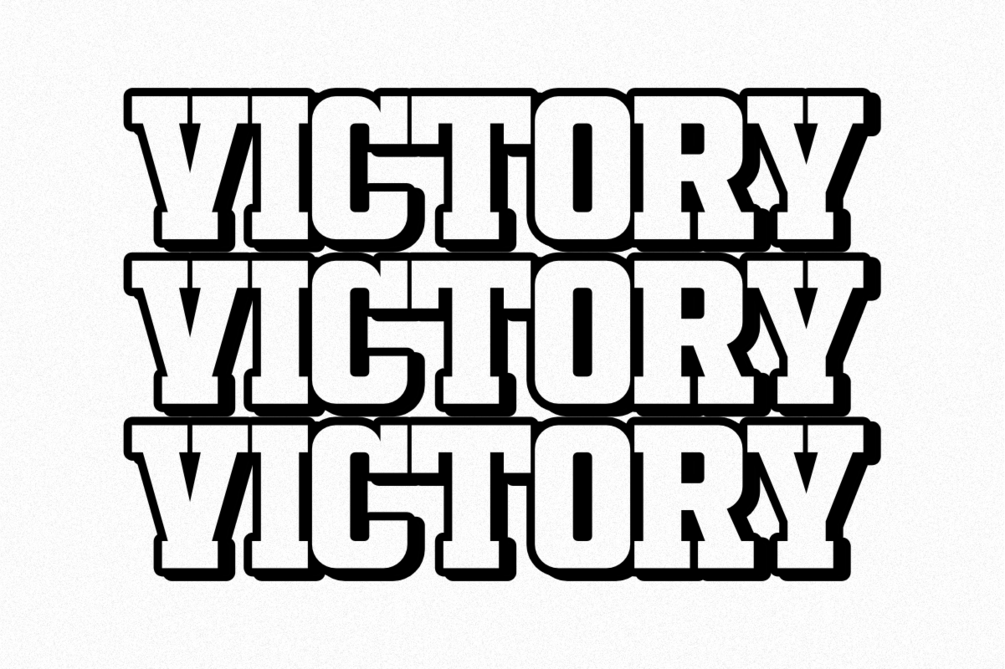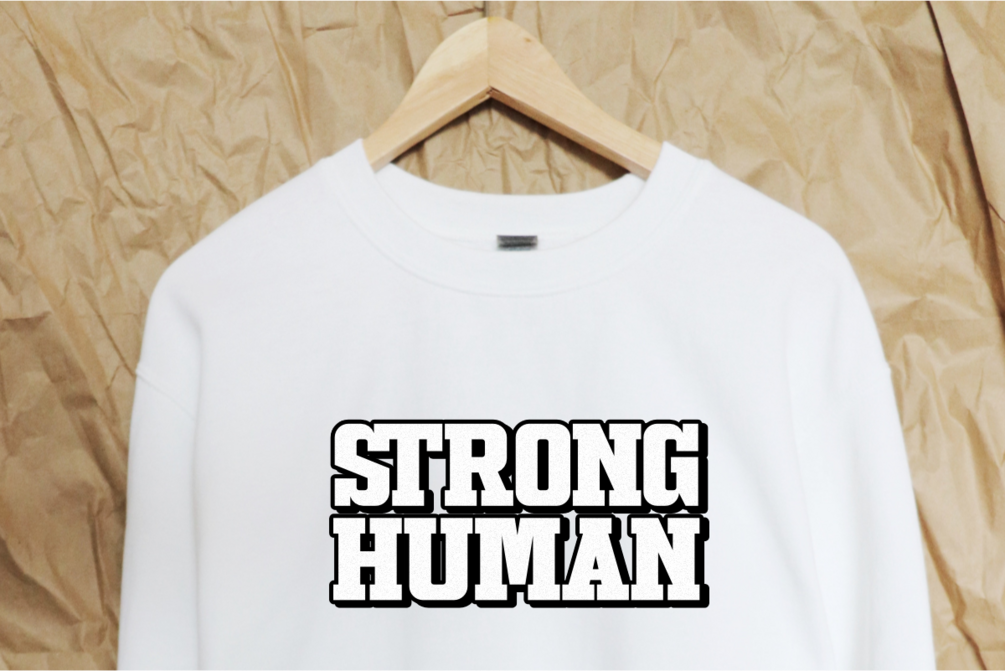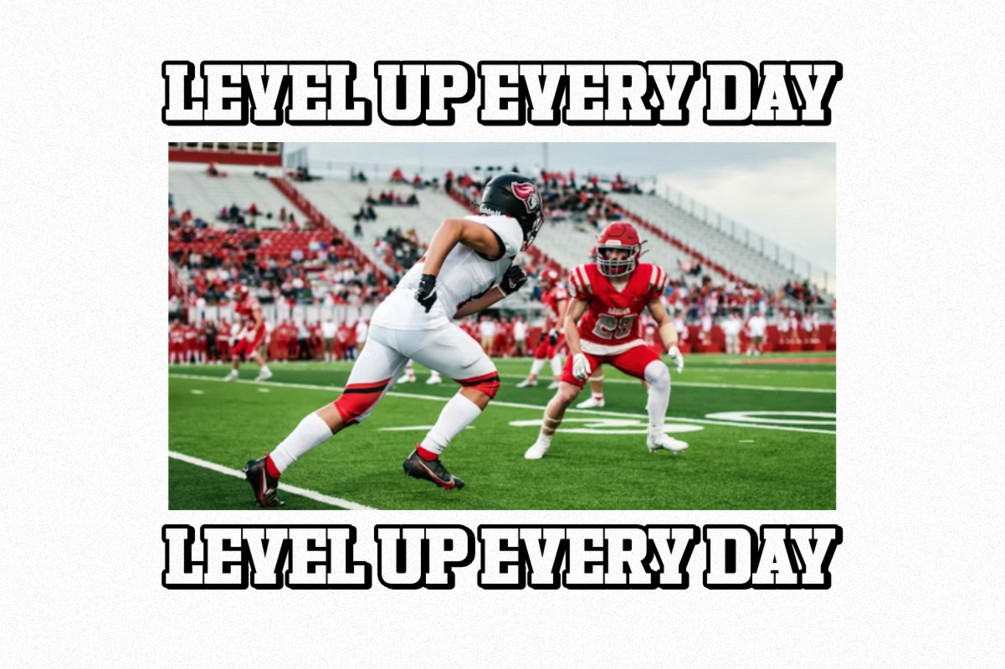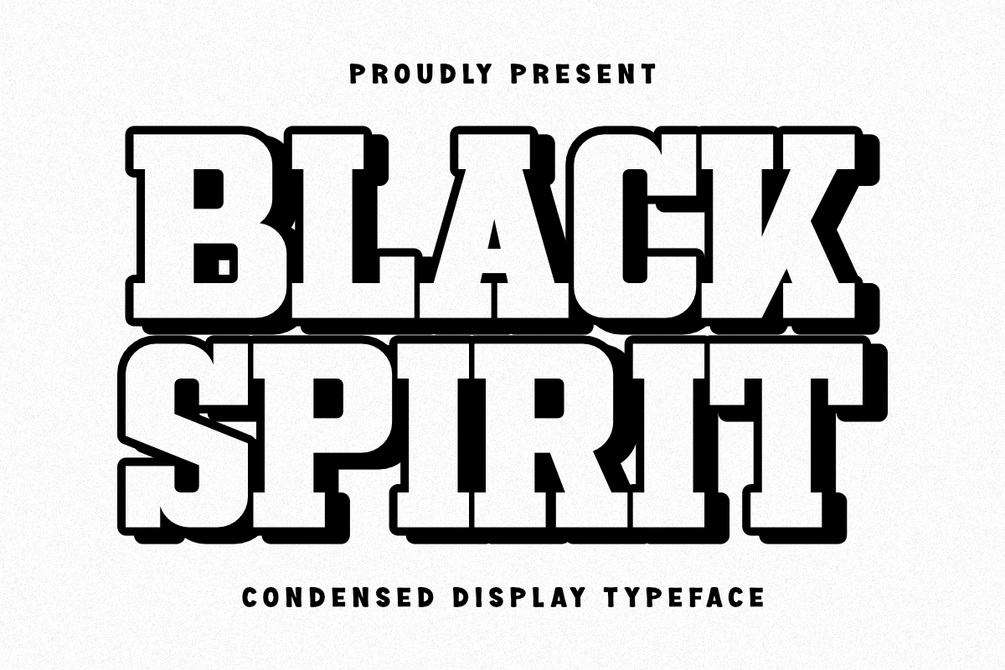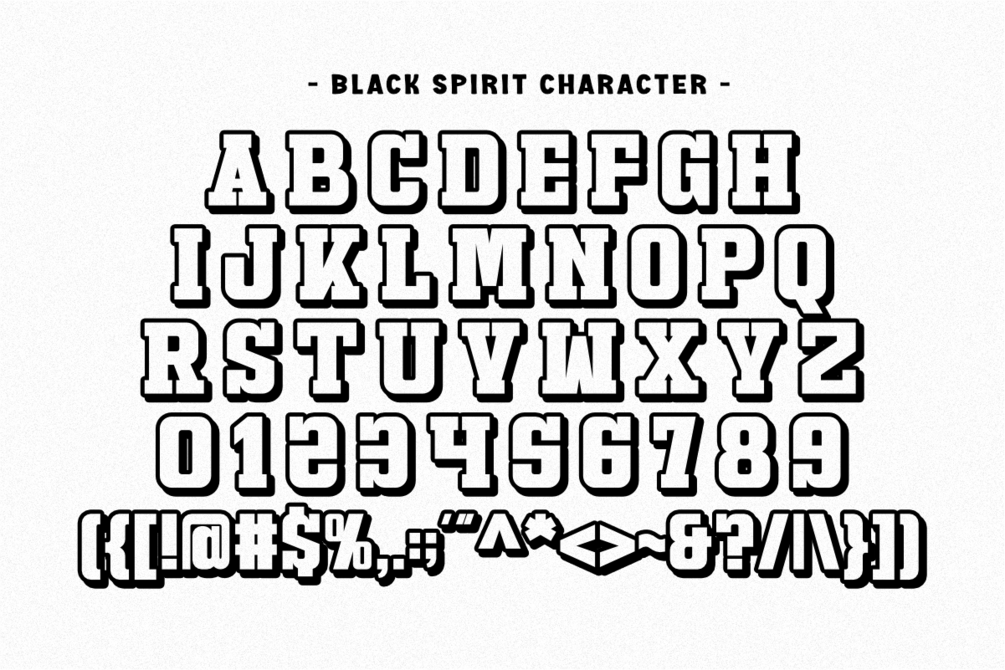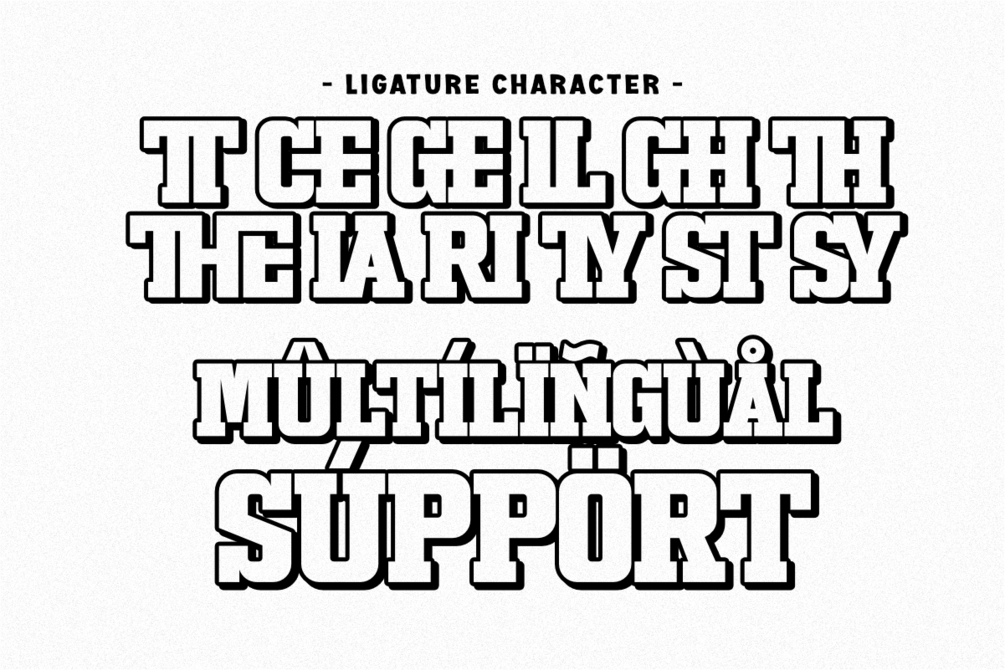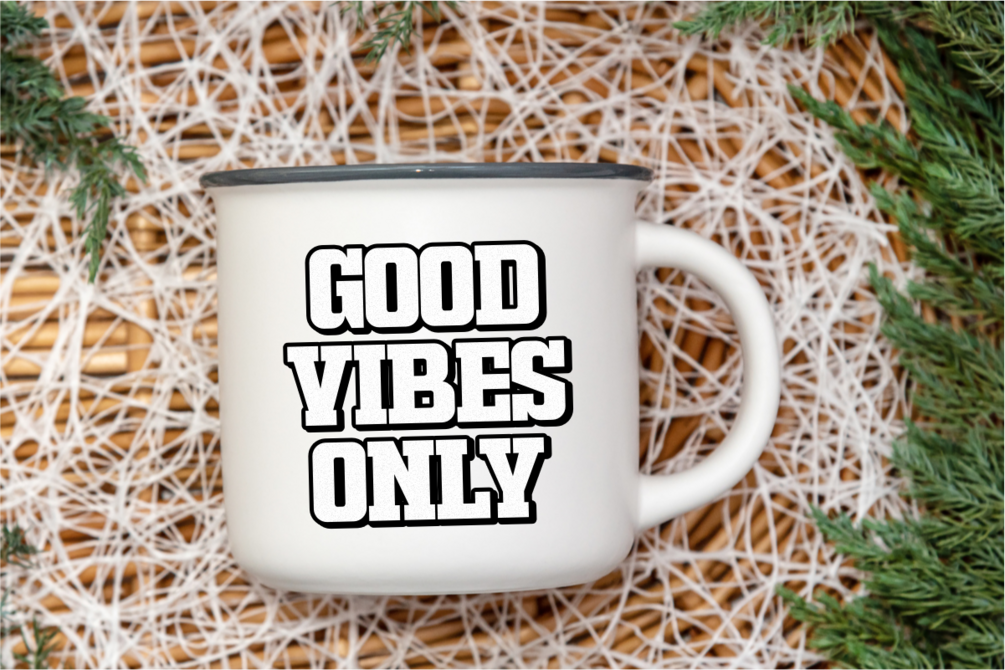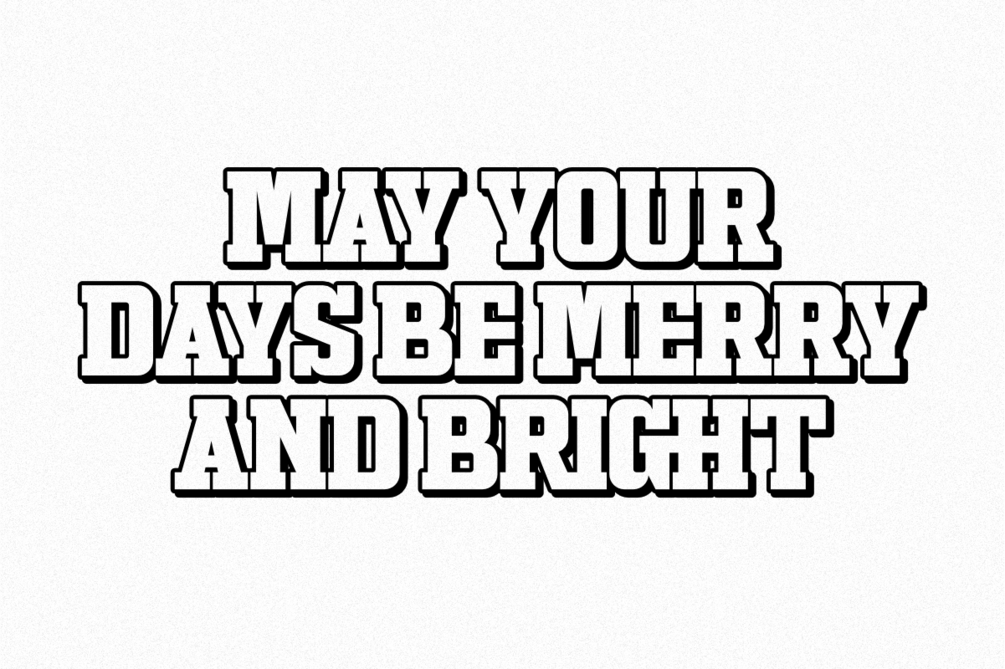
Black Spirit - Condensed Display Typeface
Black Spirit is a massive and powerful Condensed Display Typeface that combines thick, blocky structure with smooth, rounded corners and a built-in shadow effect. This all-caps font is perfect for high-impact logos, sports branding, retro posters, and any project needing a dominant, punchy, and instantly recognizable visual identity. Its clean layered style makes it ideal for apparel, headlines, and bold merchandise designs.